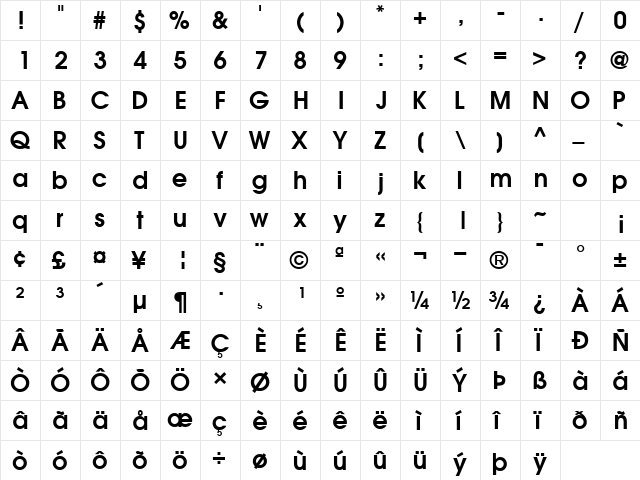
TrendexSSK SemiBold Font Preview
TrendexSSK SemiBold
Design Context for TrendexSSK Typeface
TrendexSSK offers clean, dependable letterforms without strong stylistic allegiance, making it a practical choice for designers who need flexibility. Its bold stroke weight gives it real presence on the page.
Pro Tip: Use TrendexSSK in both headline and body roles to test its range before committing to a single application.